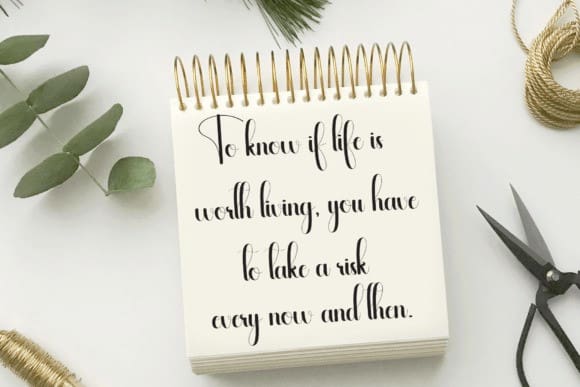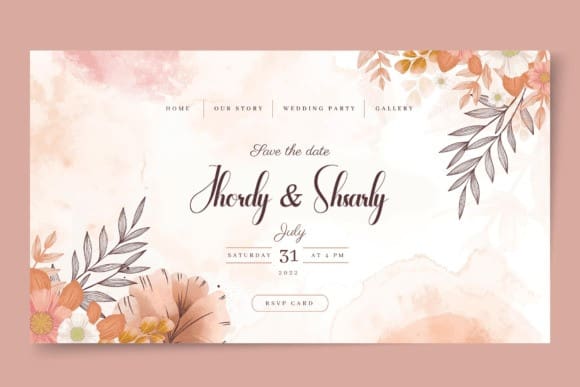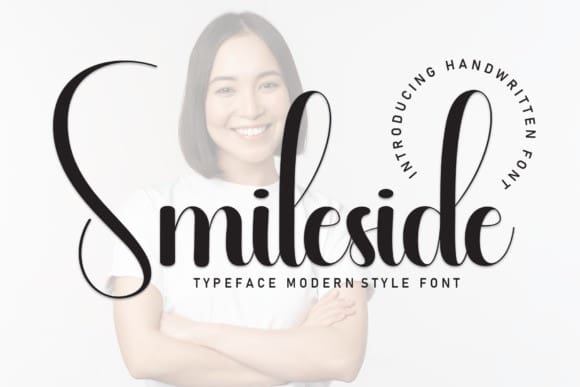
Smileside Script Font
Smileside Script Font is a sweet and friendly handwritten font. Fresh and cute, this font is ideal for writing wedding invitations, cards, or any other design that might need a fun touch!